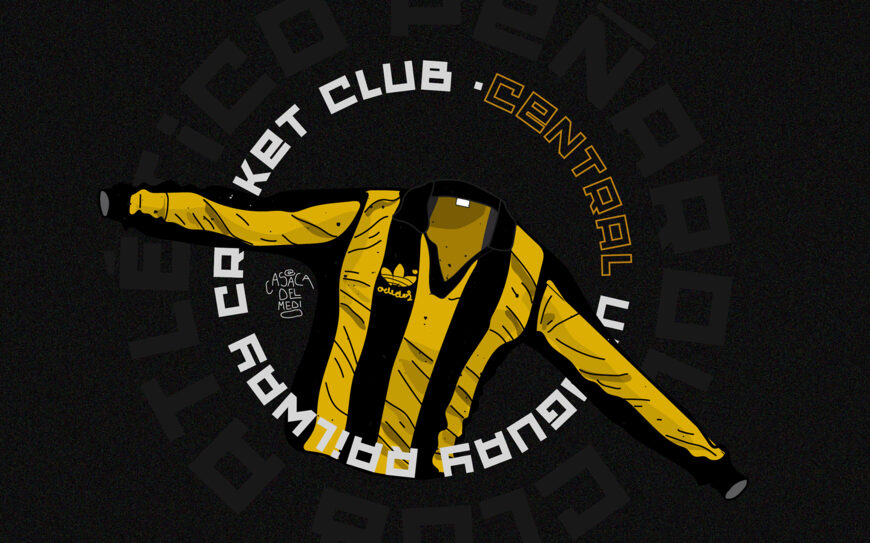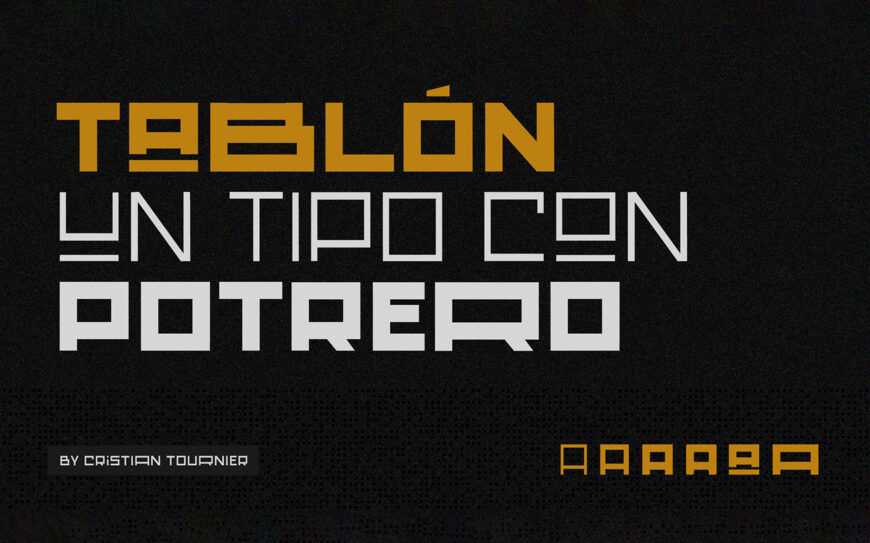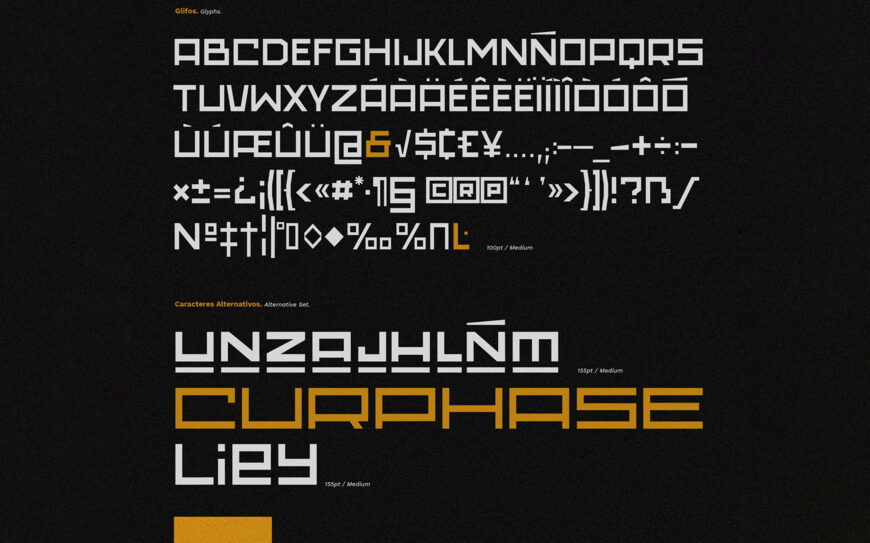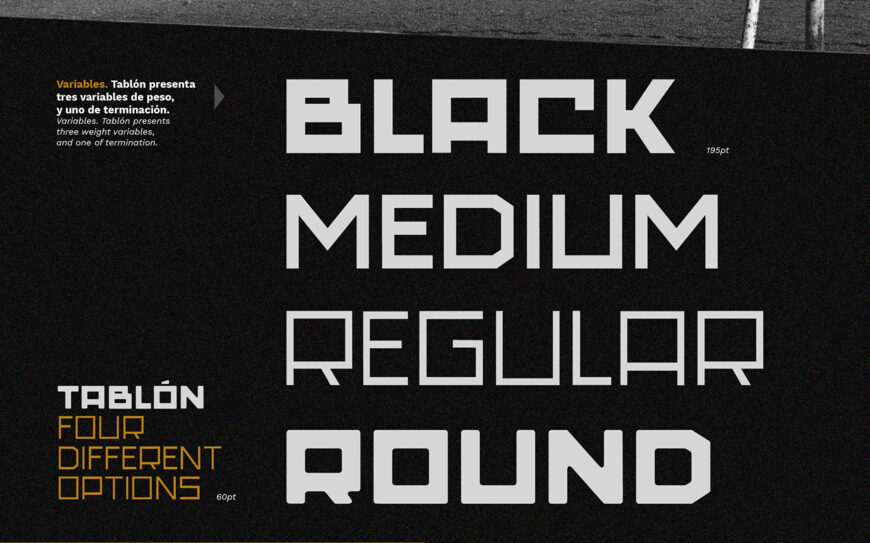
Tablón Font Family
Tablón arises from the old sign of the Matienzo Club, from the Azcuénaga neighborhood of the city of Rosario, Argentina. The letters that inspired this project have work, sweat, color, contrast, structure, harmony but above all a lot of “potrero” and love!
This typeface family includes 3 weight variables, Regular, Medium, Black, and a Rounded variable, it presents diacritical characters, punctuation and alternative signs in all its variables, important aspects of typographic design since it makes this family functional.
Tablón is a family of geometric style, working with a grid as a base, but with subtle optical adjustments, it results in a monolinear family, uppercase sans serif with multiple versions and many possibilities, which make it interesting for headlines, highlights for magazines, books, posters, promotional material, advertising, branding, or any text that needs a personality boost.